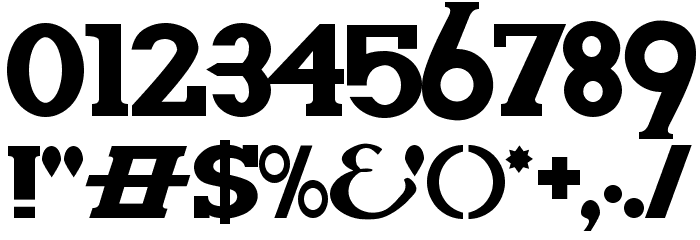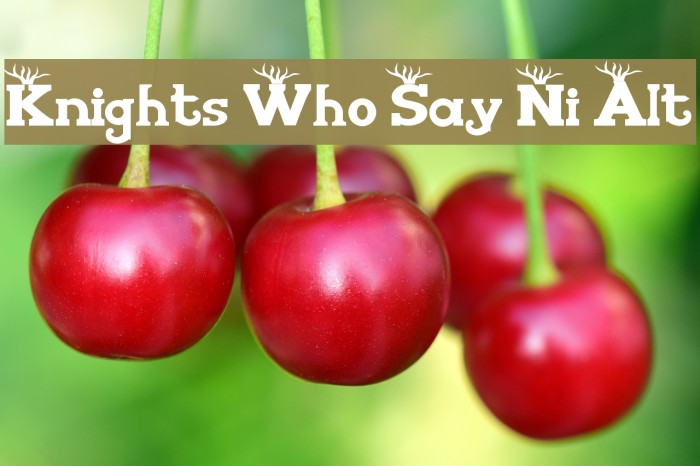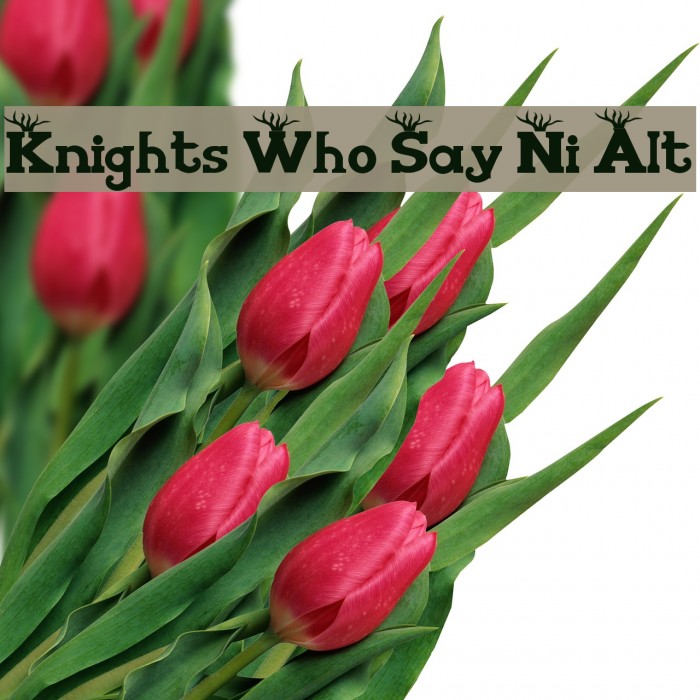
Knights Who Say Ni Alt Font
This font features a unique and playful design with antler-like embellishments on the uppercase letters, giving it a whimsical and fantasy-inspired appearance. The characters are bold and have a strong presence, with a slight curvature that adds a touch of elegance. The lowercase letters maintain a consistent style, offering a smooth and rounded form that complements the uppercase. The numbers and special characters are equally bold, ensuring readability while maintaining the decorative theme. This font is ideal for projects that require a touch of creativity and fantasy, such as themed events, posters, or branding for imaginative products.
A whimsical, bold font with antler-like embellishments on uppercase letters.
- Proposed Projects: Ideal for fantasy-themed events, creative posters, or imaginative branding.